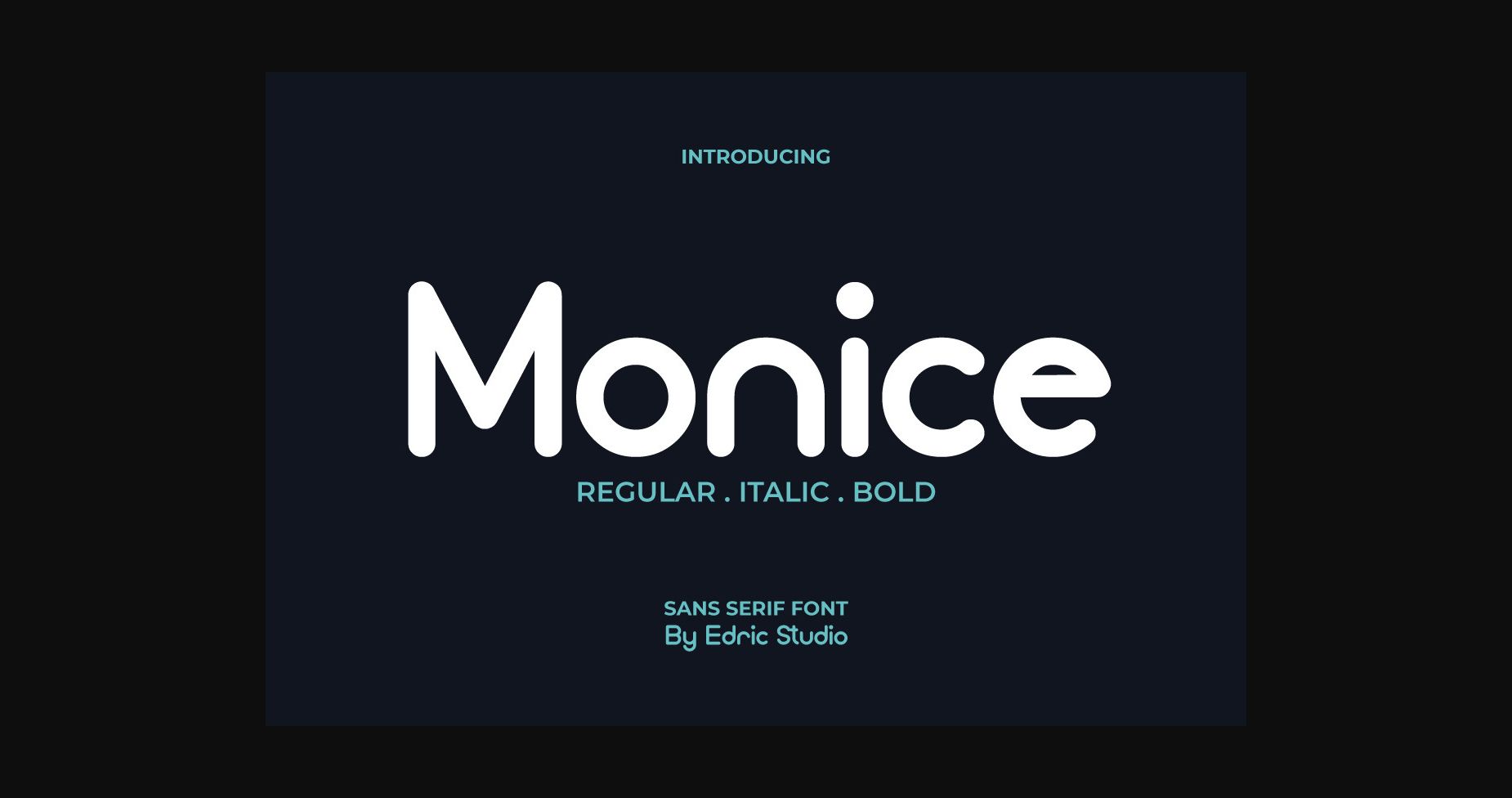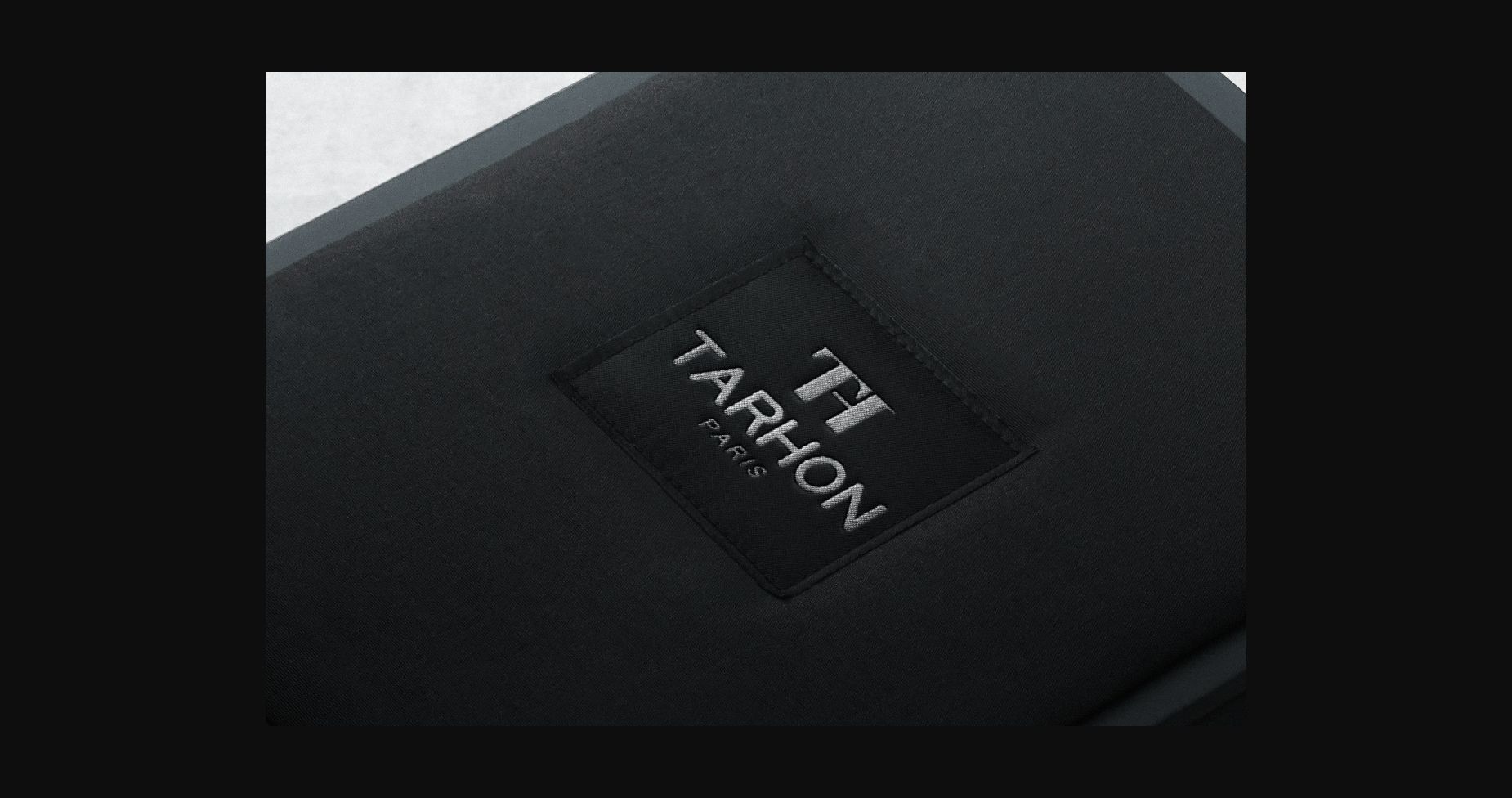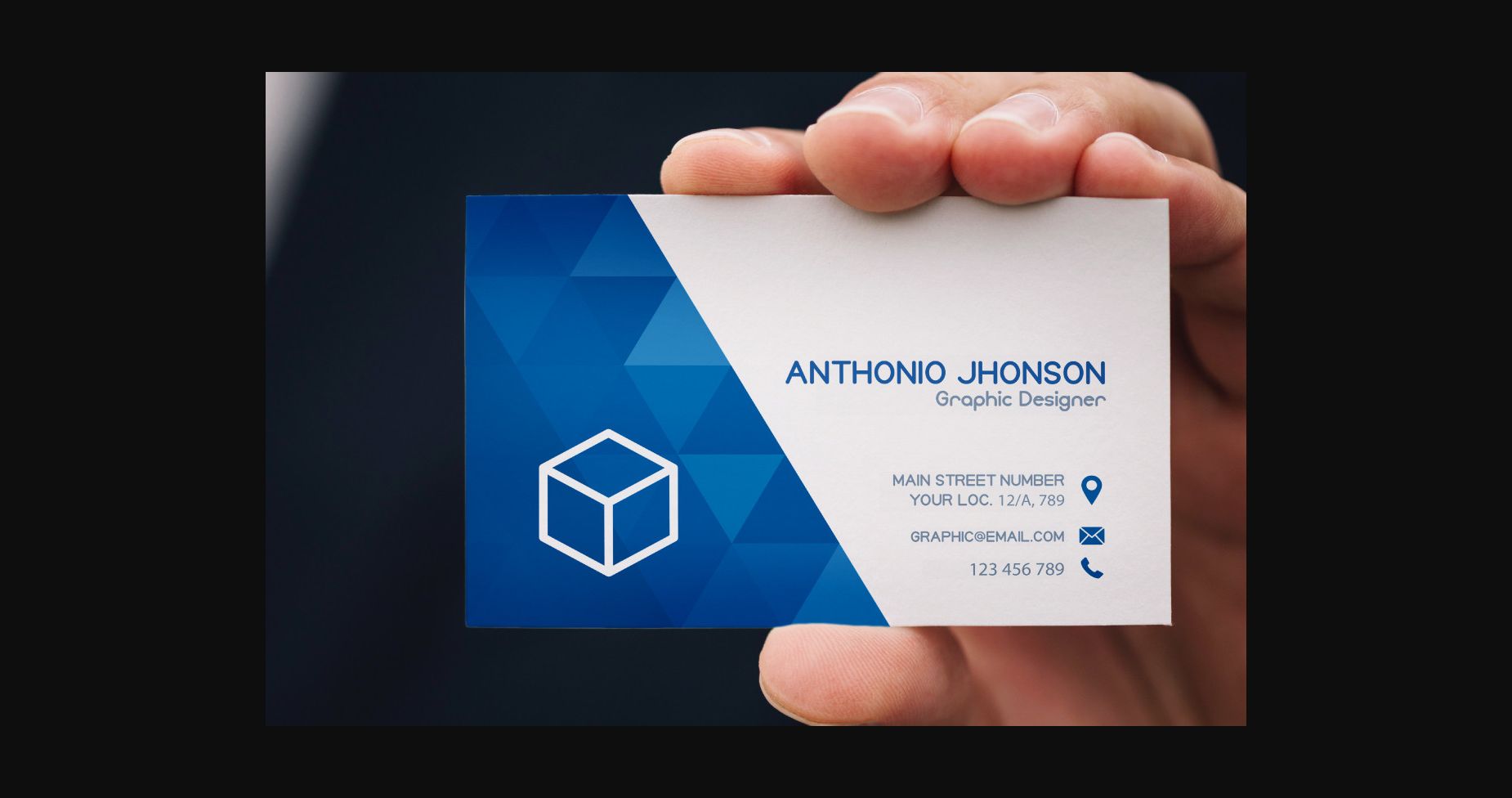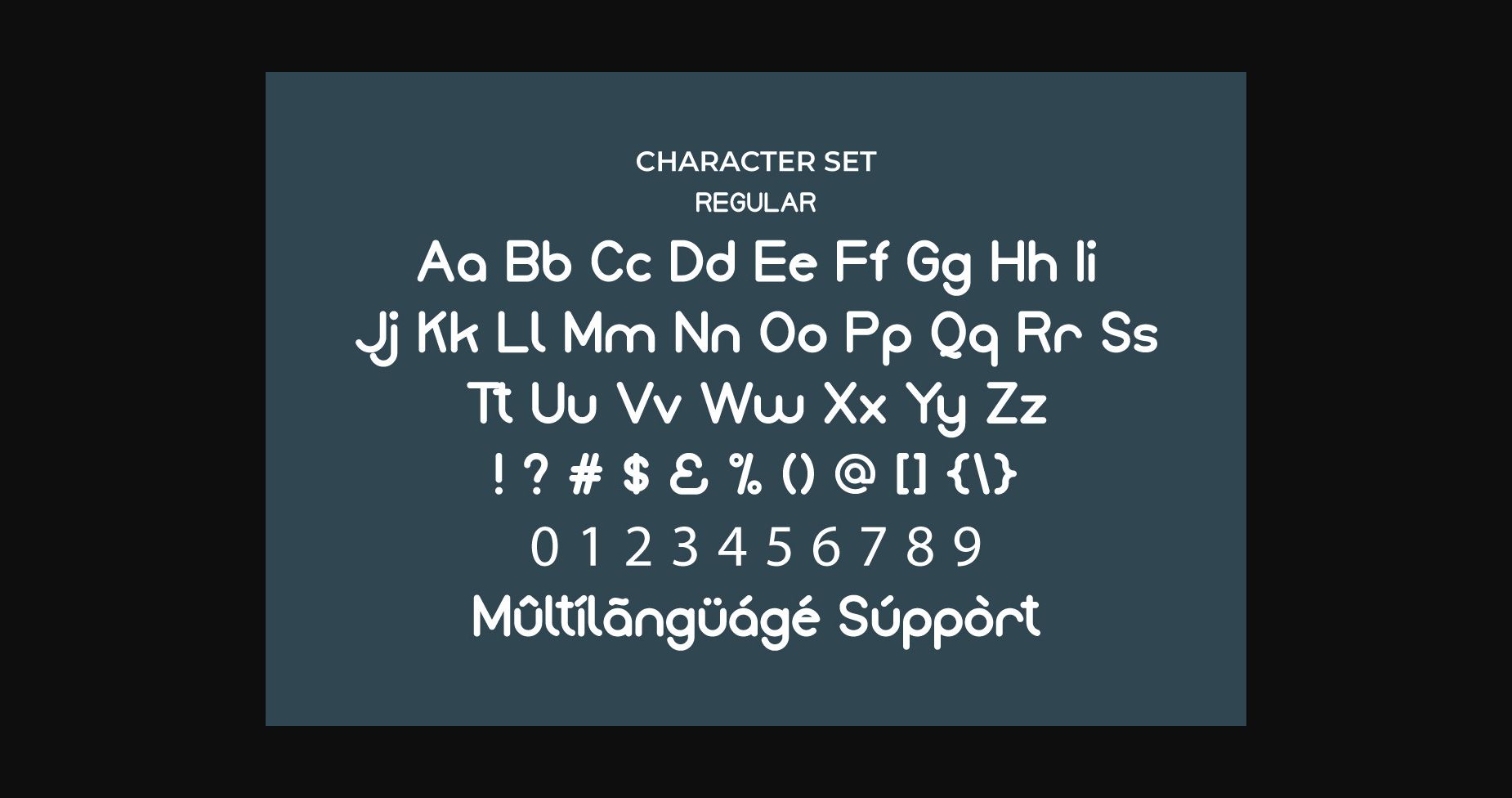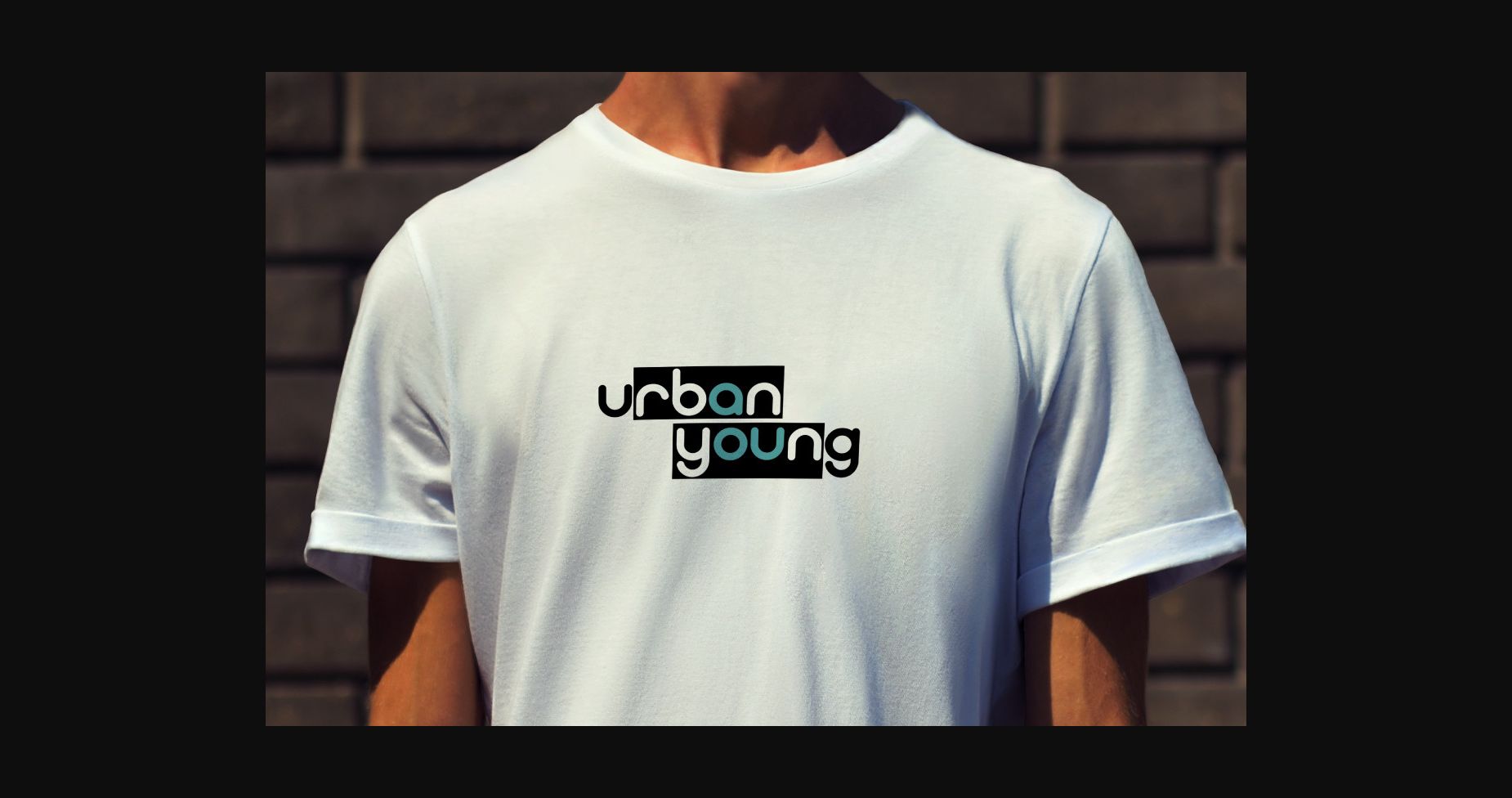
Monice Font
About Monice Font
Monice is a modern sans serif typeface with a casual style. The styles of this font are elegant, modern, stylish, and minimal. Monice Font will be great for any projects, including branding, logo, stationery, business card, signage, flyer, and brochure.